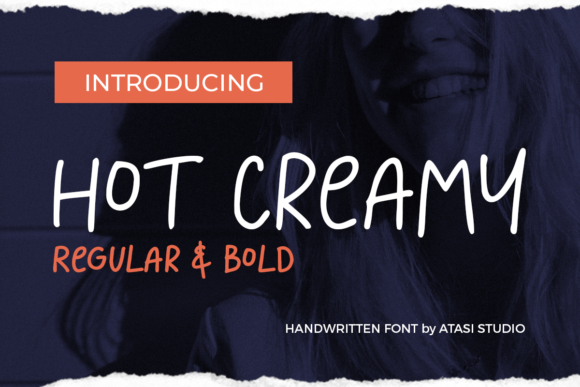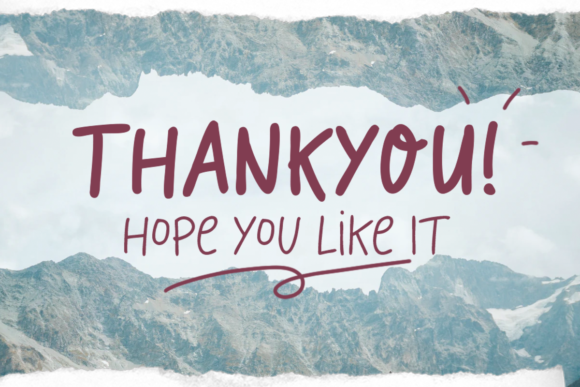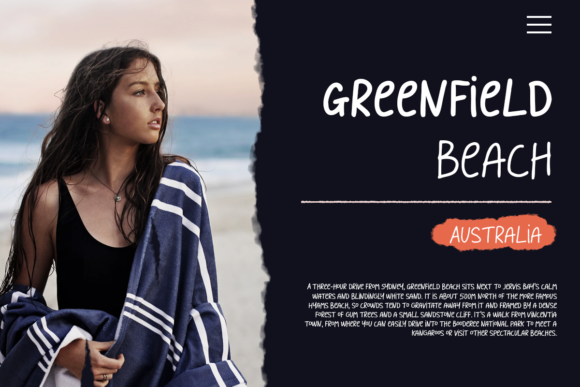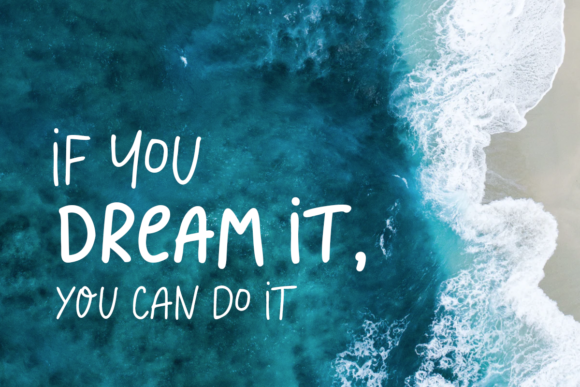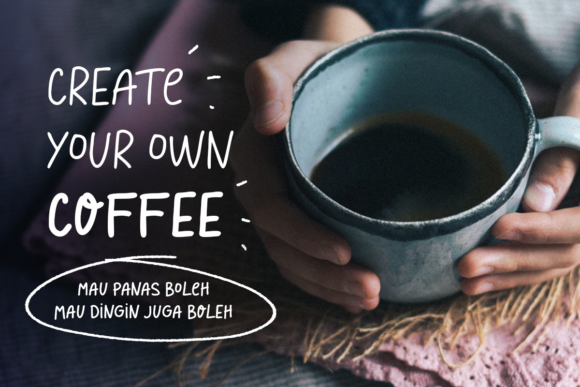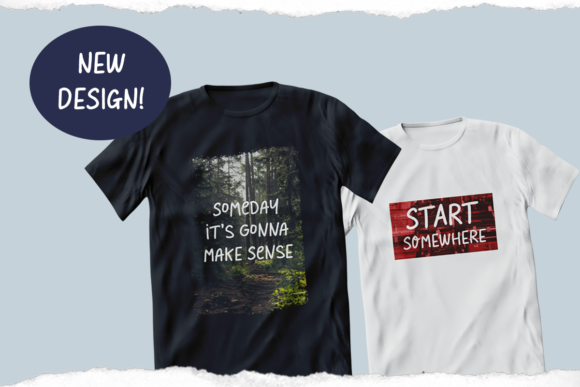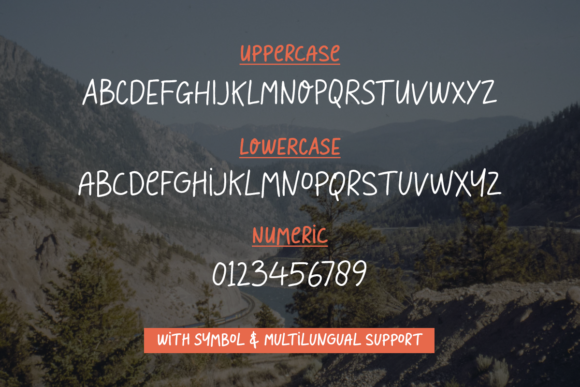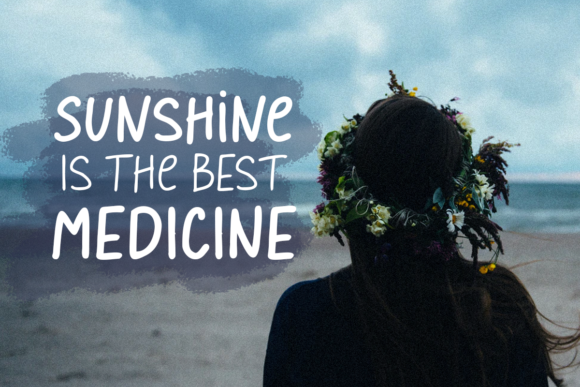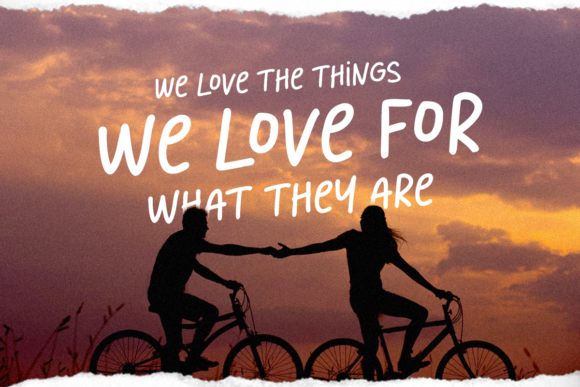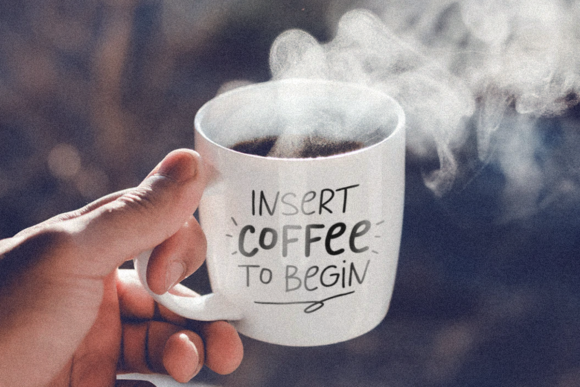
Hot Creamy Font
About Hot Creamy Font
Hot Creamy is a handwritten font with casual look and natural feel. Use it for any design project that requires a personalized appearance!